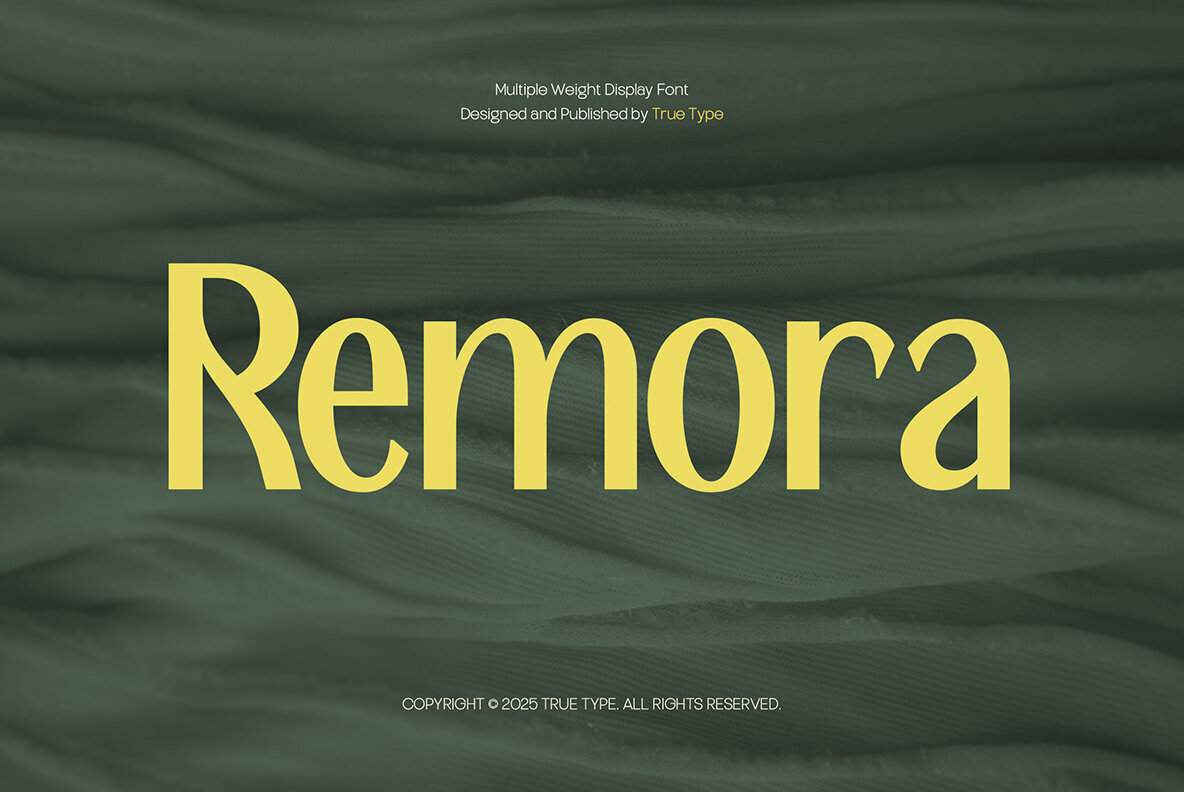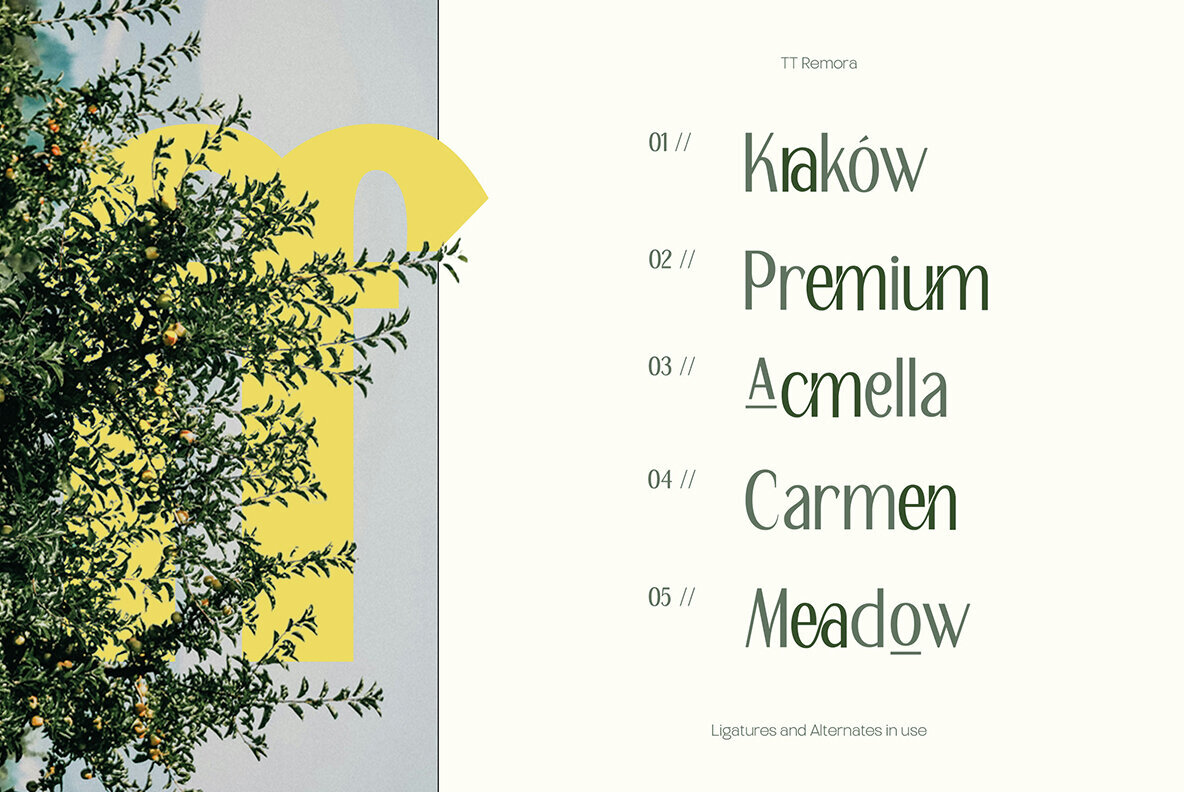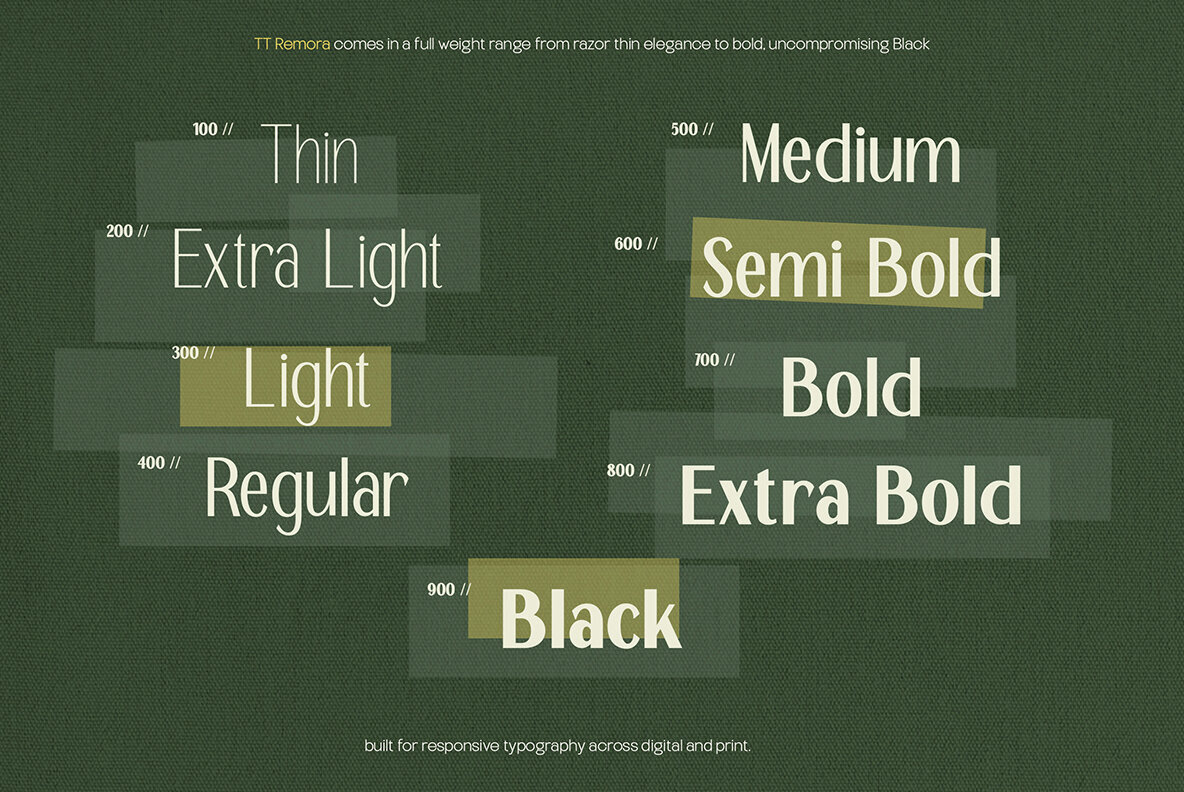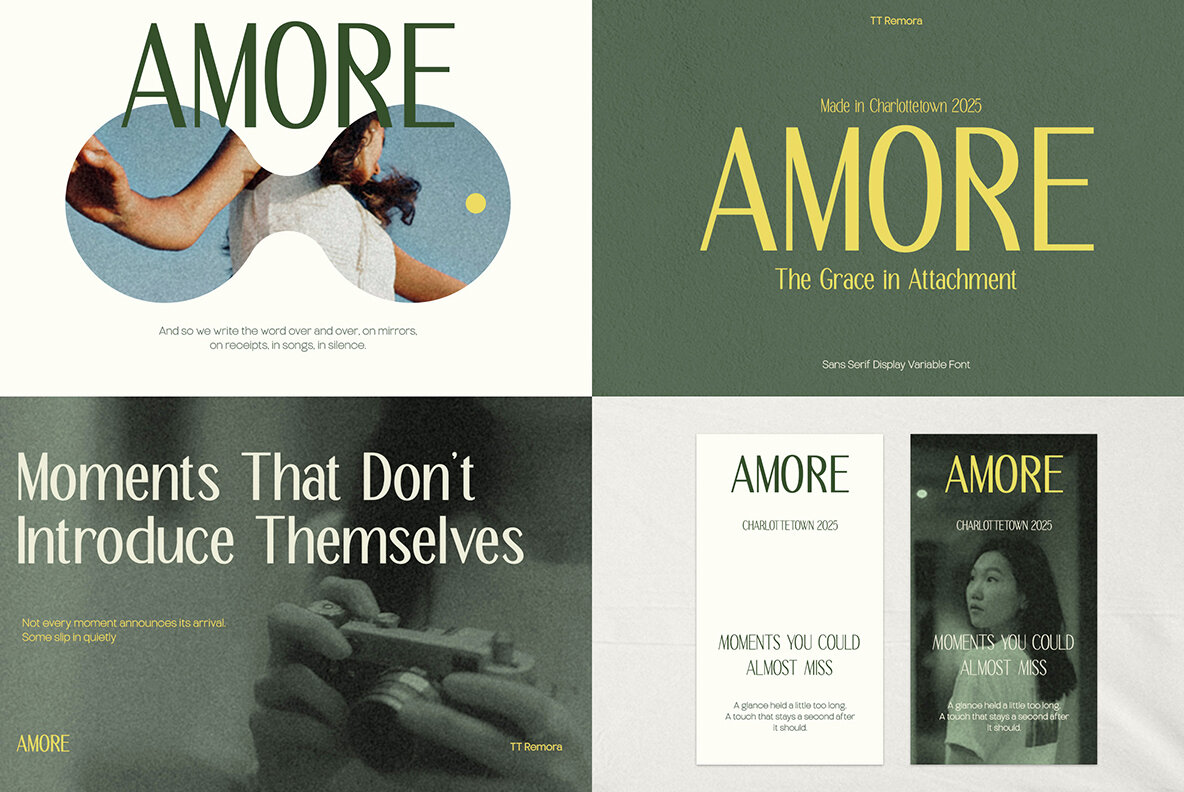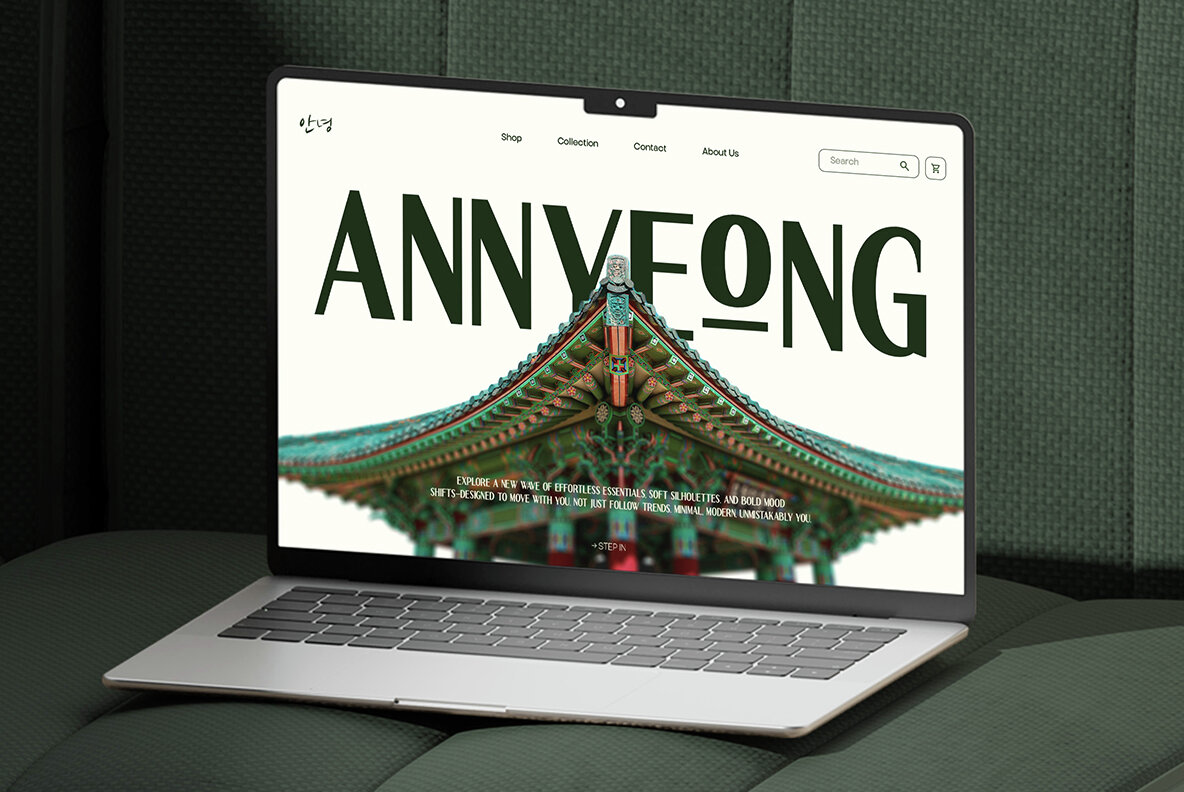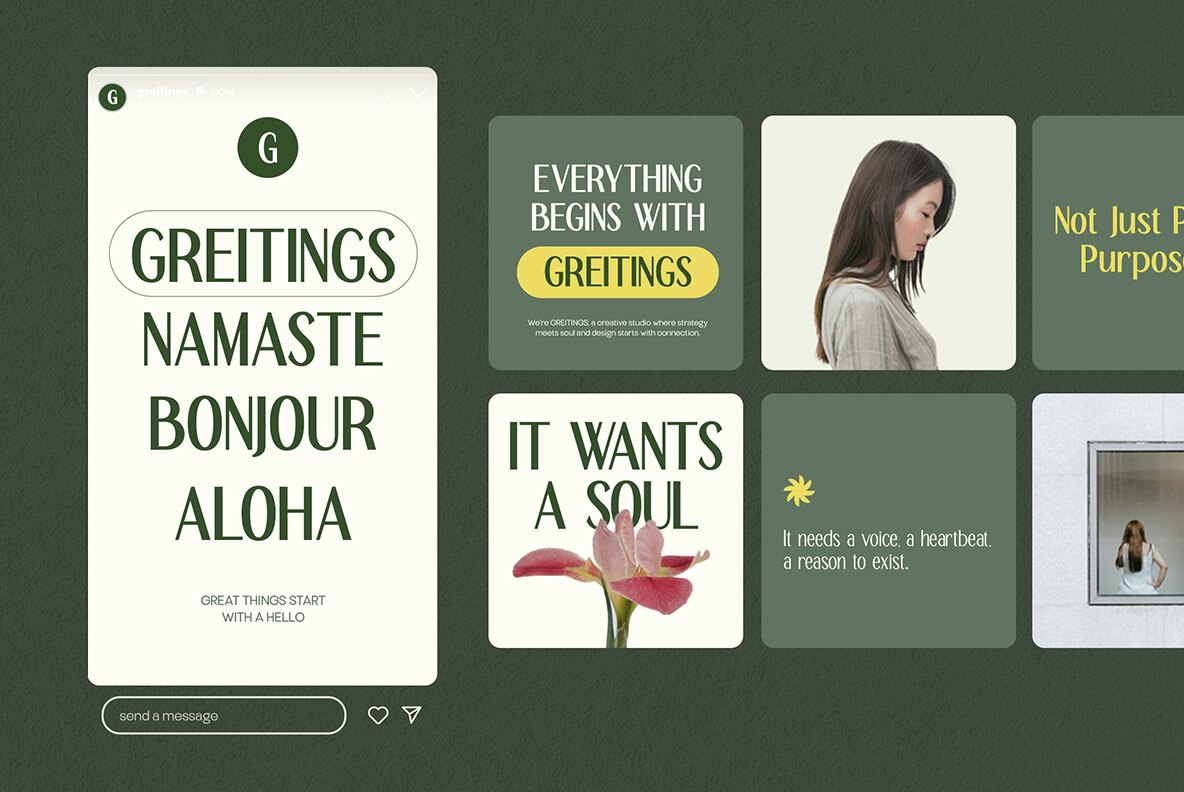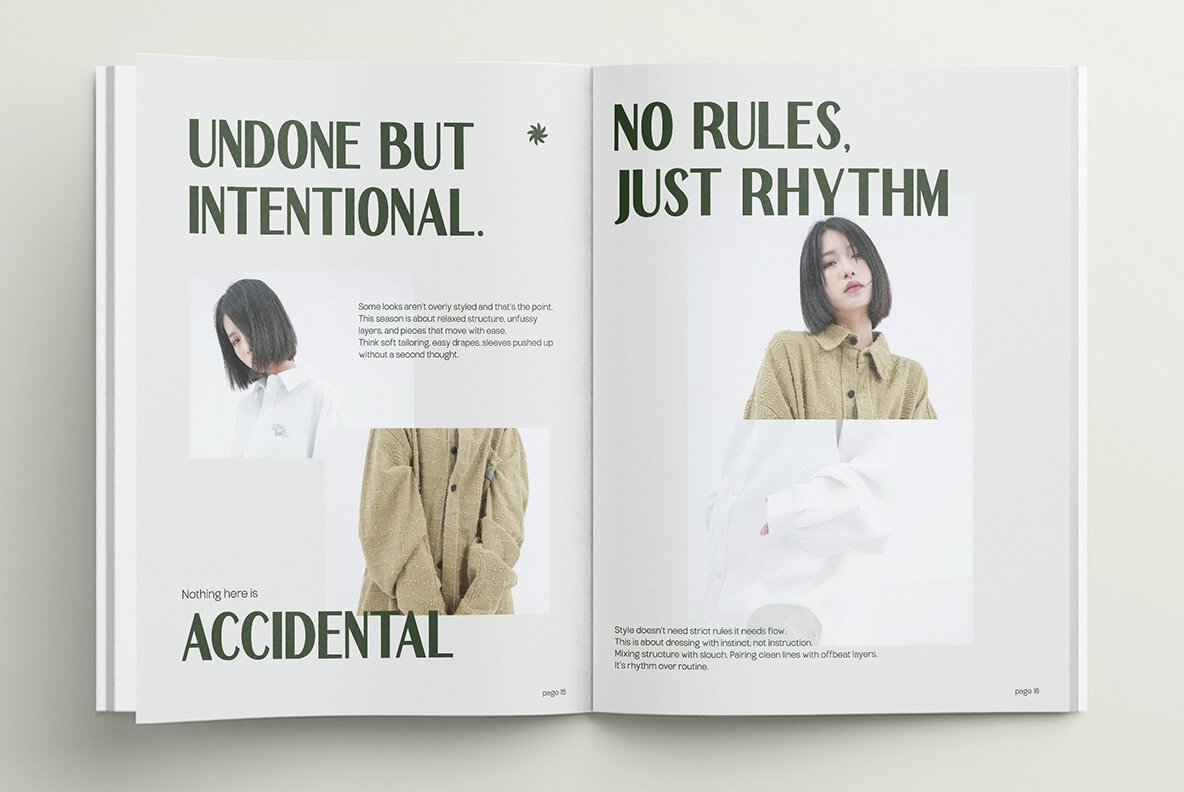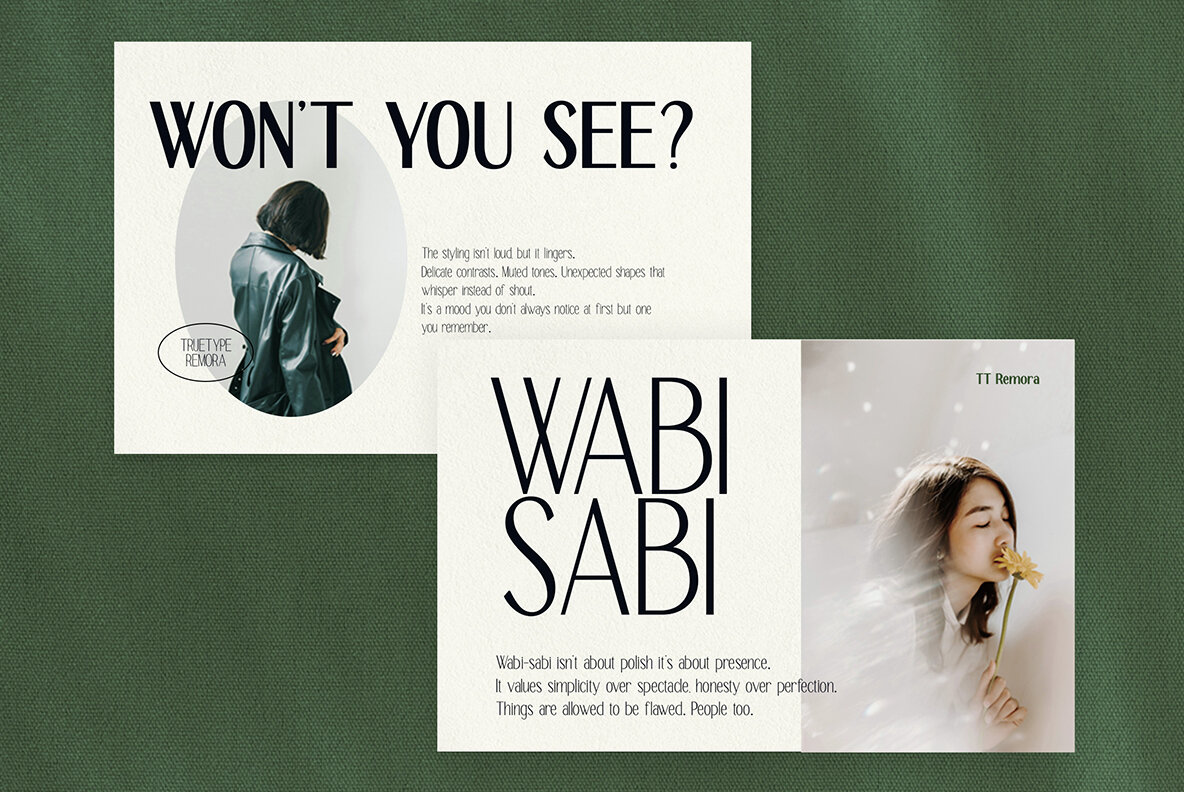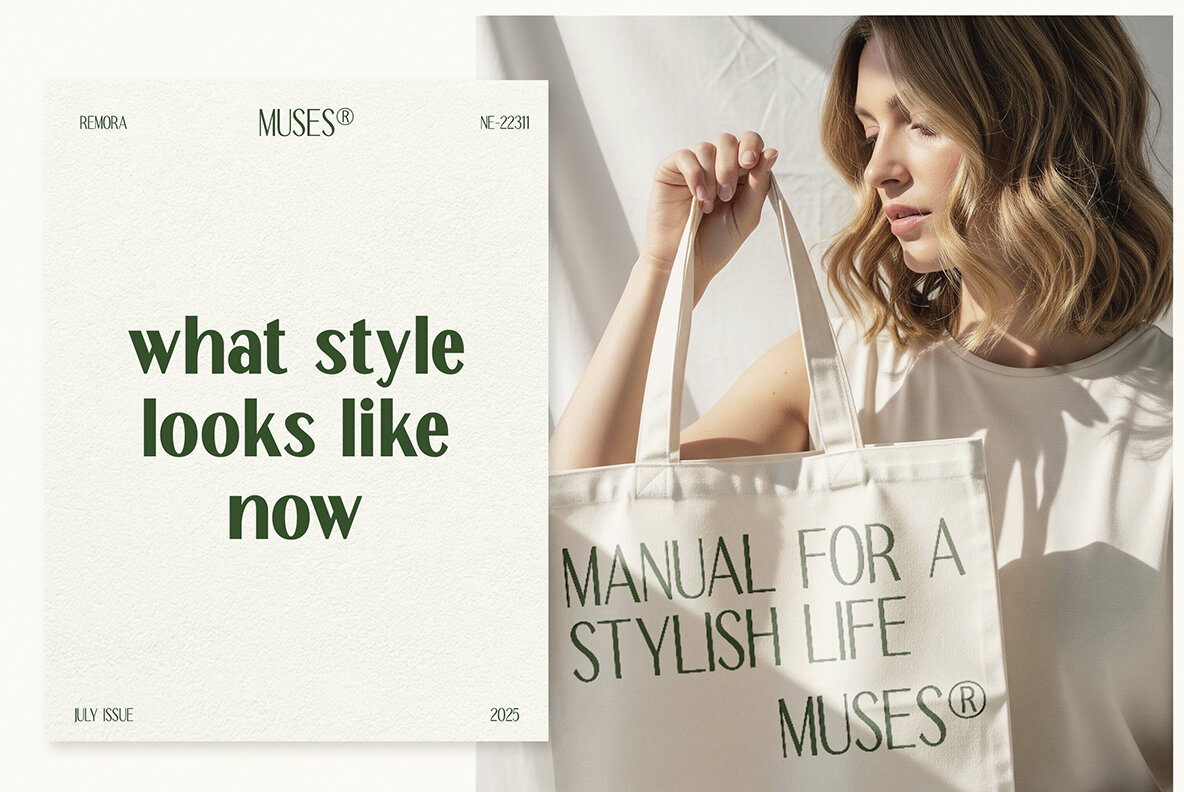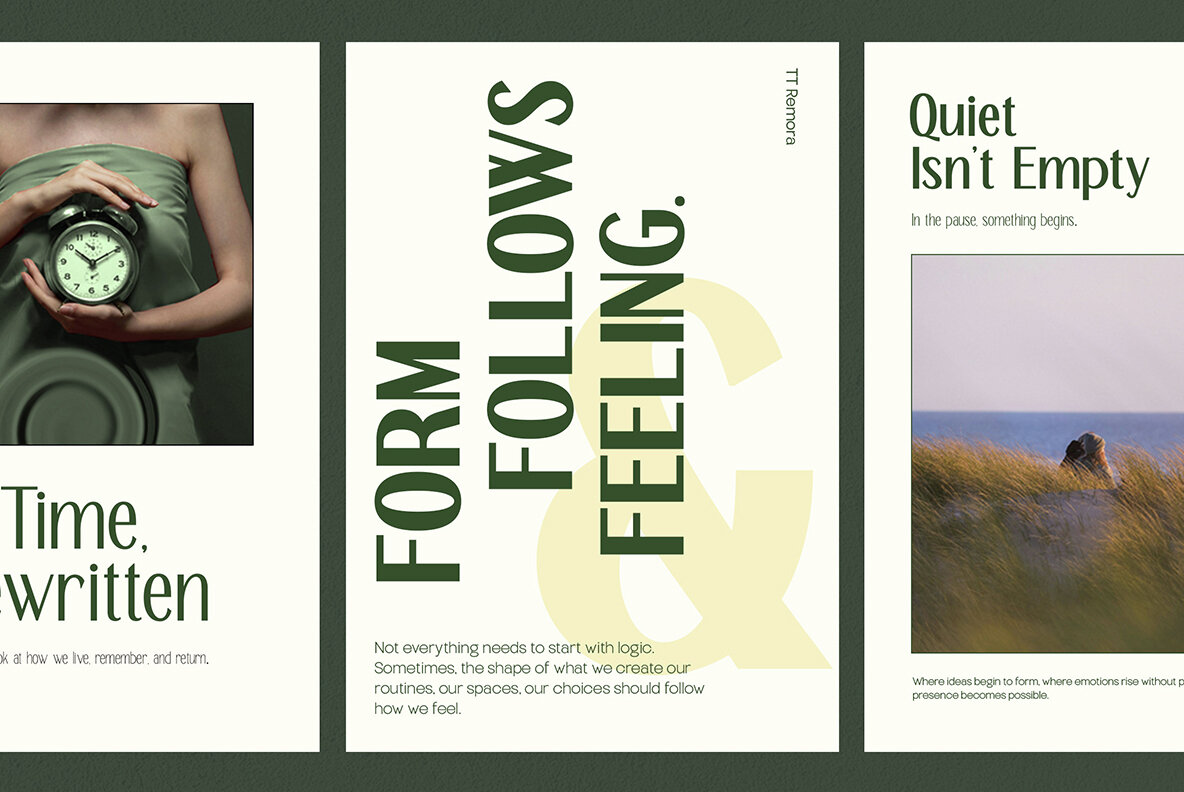
TT Remora Font
TT Remora is a contemporary sans serif typeface family, balancing character and clarity across eight distinct styles, ranging from the delicate Thin to the assertive Extra Bold. It embodies a harmonious blend of clean geometry and expressive letterforms, offering versatility for various design applications. The font's tall x-height, elegant curves, and precise spacing contribute to excellent readability, whether in small size text or large headlines. This makes it ideal for editorial spreads, brand identities, and engaging digital content, infusing a fresh and refined tone into your typography. TT Remora confidently merges style with functionality, offering a typeface that presents a professional yet personable image.TT Remora: A Sans Serif Typeface of Distinctive Clarity